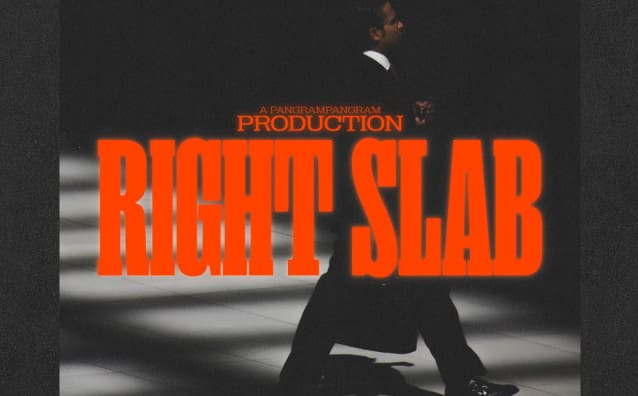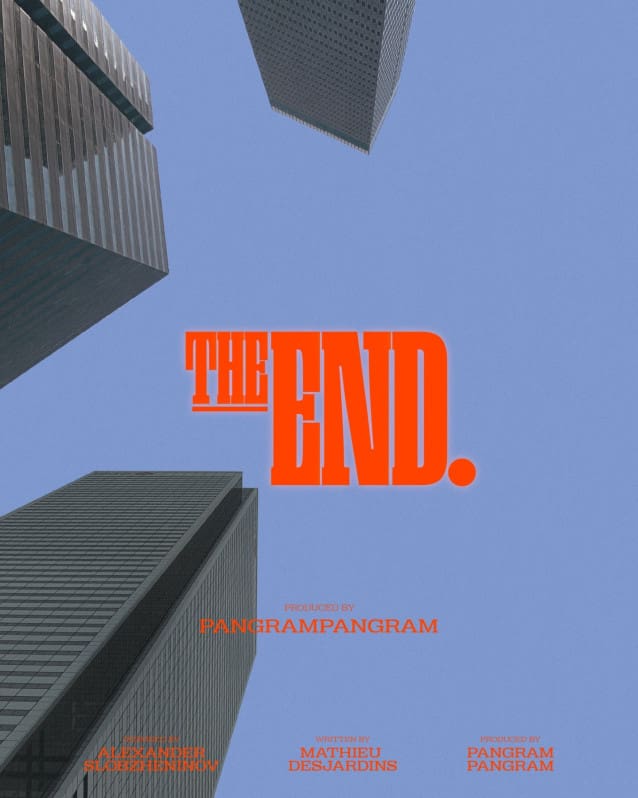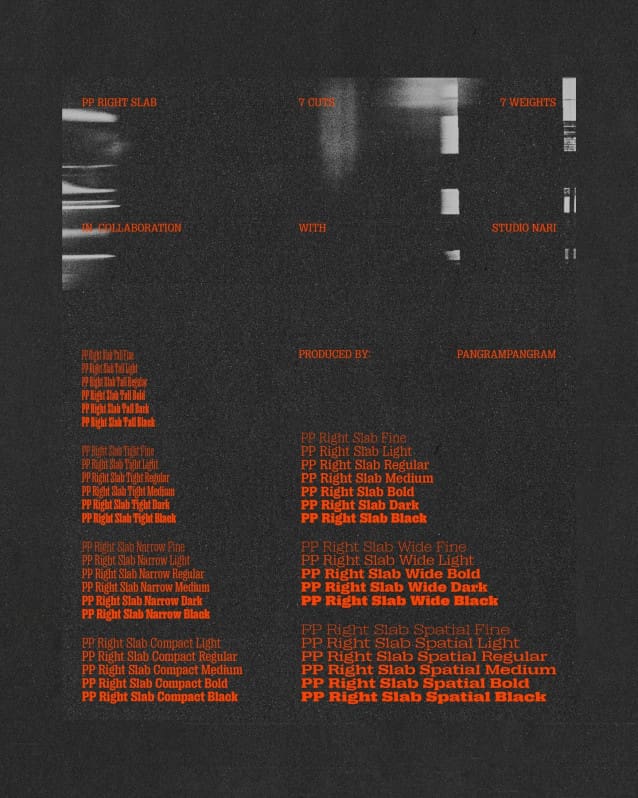
PP Right Slab Font Family
PP Right Slab Font Family is that big boi of the family. Massive at first glance, the typeface quickly turns out to be your good old friend. In its heavy styles, PP Right Slab unapologetically occupies all of the space with its chunky serifs, while light and narrow cuts leave some more air. The typeface is perfect for grabbing attention in a nice and fun way. It feels most comfortable in large display sizes, but styles near Regular can handle some paragraphs for text too. Right Slab is a serif brother of Right Grotesk, from which it has inherited low contrast, large x-height and a ton of variable styles covering 7 weights × 7 widths.
Right ‘American Psycho’ Slab, an original Pangram production. Slab was giving us major tarantino vibes, those chunky serifs paired with an extended structure. We created a set of imagery that feels like the campaign for a new movie release.